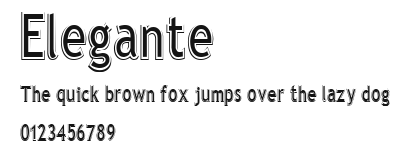
Elegante Preview
• Font Name: Elegante
• Designer: Steve Cloutier
• Manufacturer: PYRS Fontlab Ltd. / Made with FontLab
About Elegante.ttf
Elegante.ttf is a modern, elegant sans-serif font designed for ultimate readability and visual harmony. Perfect for branding, headlines, web design, and print materials.